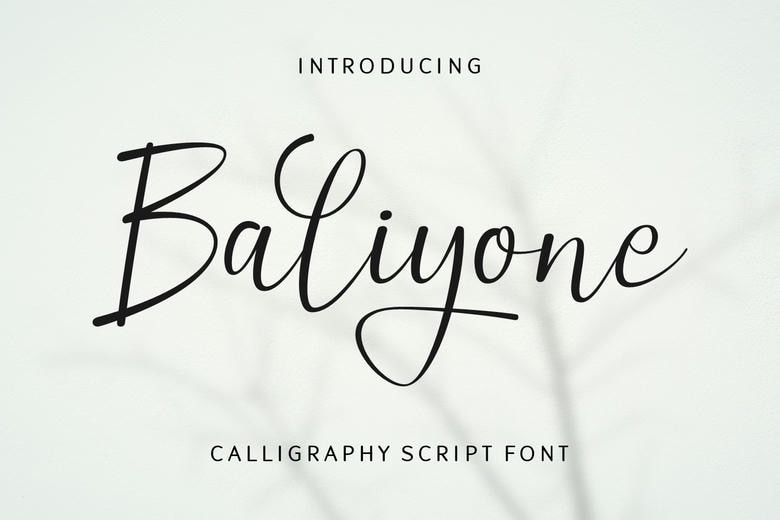
Baliyone Font
Baliyone as the name suggests is a Classical Calligraphy script type face font with elegant smooth strokes. Wedding invitations, branding and event stationery for a beautiful font that will give your project an elegant appeal.
Baliyone offers great opportunities for effective and creative placements in print as well as electronically produced media. I find this font very useful for logos or texts in social networks, or in greeting cards, as it adds a retro feeling to ideas.
Baliyone Calligraphy Script Font